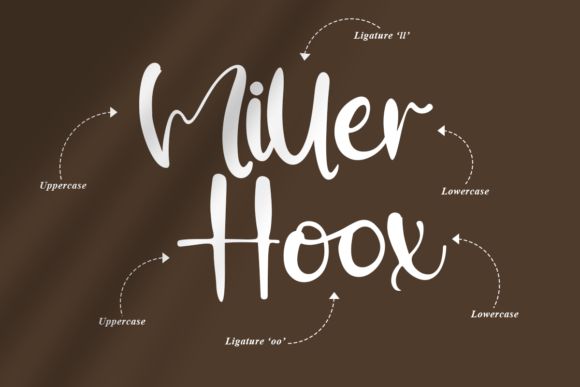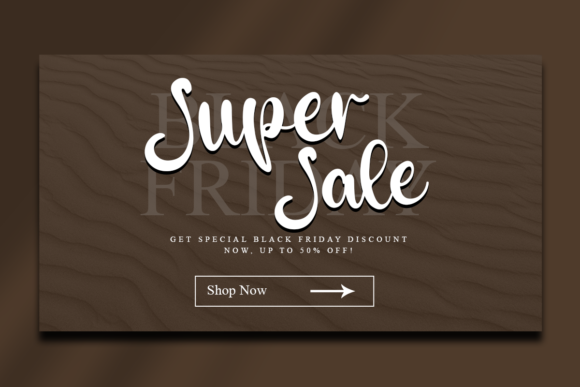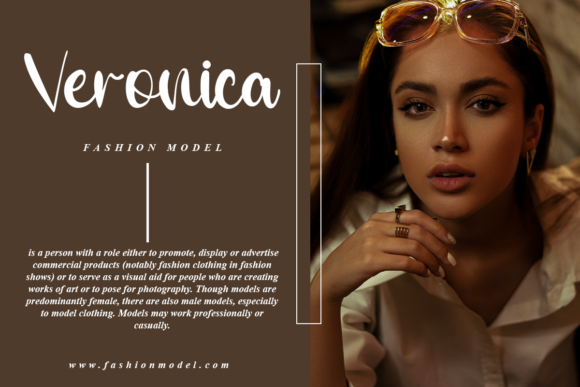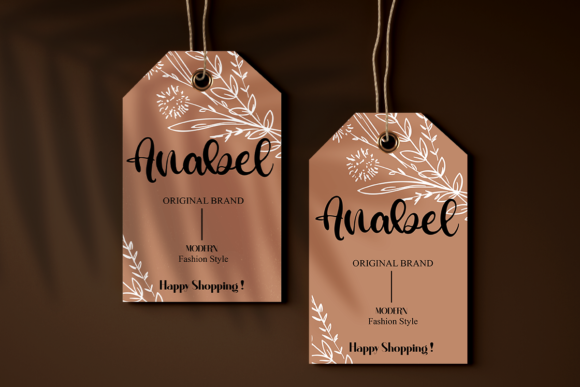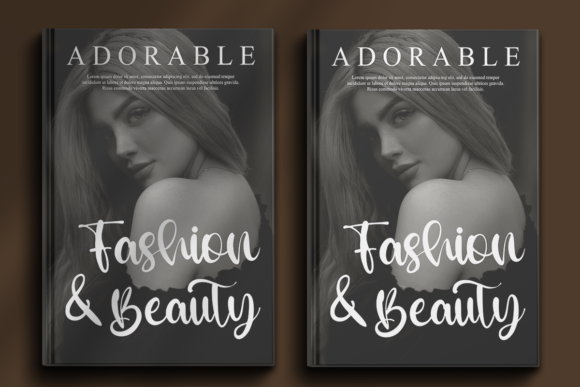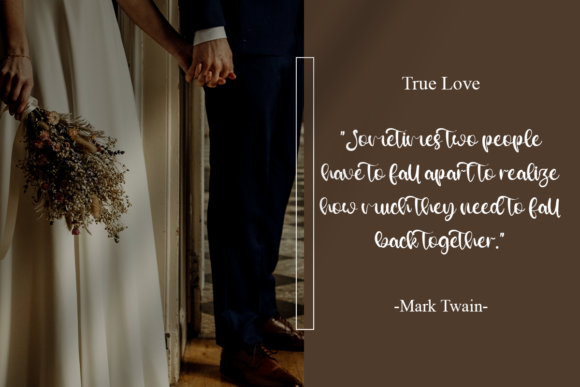
Introduction to Mark Tyler Font
Remember that moment when you finally nailed a design concept, and everything just fell into place? The client loved it, the colors popped, and the typography was on point. For many designers, that feeling is the ultimate high, and it’s what drives us to keep pushing the boundaries of creativity. One key element that can elevate any design is the right font, and that’s where the Mark Tyler Font comes in – a modern script typeface that’s perfect for logotypes, branding design, and more.
With its versatility and high-quality design, the Mark Tyler Font is an invaluable resource for any creative project. Whether you’re working on a free download or a paid design, this font is sure to capture attention and leave a lasting impression. Plus, with a transparent background, you can easily integrate it into any design without worrying about a messy background.
Key Features of Mark Tyler Font
- High-quality font design suitable for creative projects, offering a unique and stylish aesthetic.
- Includes a transparent background, allowing for easy integration into various design elements.
- Comes in a single weight, ideal for projects requiring a consistent and professional look.
- Features a resolution of 300 DPI, ensuring crisp and clear text display.
- Perfect for use in various design applications, including logos, typography, and creative projects.
Honest Review: Mark Tyler Font
- ✨ High-quality design: The font has a professional look and feel, making it perfect for creative projects that require a touch of elegance.
- ✨ Transparent background: The font’s transparent background makes it easy to use in designs with complex backgrounds or textures.
- ✨ Versatile: The font is suitable for a wide range of design projects, from corporate materials to personal projects.
- ⚠️ Limited font sizes: The font doesn’t come in a wide range of font sizes, which may limit its use in certain design projects.
- ⚠️ No italic or bold versions: The font doesn’t have italic or bold versions, which may be a drawback for designers who need these styles.
Overall, I’m impressed with the Mark Tyler Font. While it may have some limitations, its high-quality design and transparent background make it a valuable design resource for designers working on creative projects. I’d definitely recommend giving it a try for your next design project.
How to Use Mark Tyler Font
Introduction to Mark Tyler Font
Mark Tyler Font is a high-quality design resource ideal for various creative projects. This versatile font offers a transparent background, making it perfect for use in a range of applications.
Getting the Most Out of Mark Tyler Font
To maximize the effectiveness of Mark Tyler Font, use it in conjunction with other design elements that complement its unique style. Experiment with different font sizes, colors, and arrangements to find the perfect balance for your creative project.
Mark Tyler Font is ideal for:
- Business card designs
- Logo creation
- Brochure and flyer design
Q: What is the recommended resolution for using the Mark Tyler Font?
We recommend using the Mark Tyler Font at a minimum resolution of 300 DPI (dots per inch) for optimal quality. This ensures that your designs and graphics look crisp and clear, even when scaled up or printed at high resolutions.